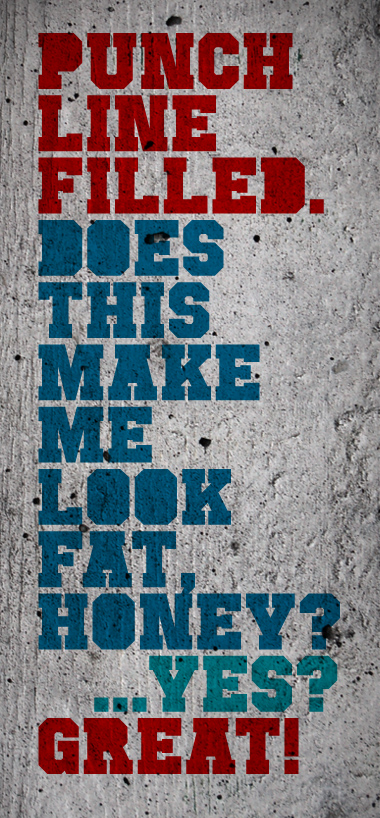
Punchline Filled
by Tobias Sommer (shasta)
Cloned from Punchline by Tobias Sommer (shasta).
If Punchline doesn't look heavy enough to you, try his brother: This guy has filled counters for real heavy duty tasks.
I prefer this filled version. Maybe you could make a blocky version with all letters filled. I think this would be cool. Your sample is superb.
Very cool. 10/10